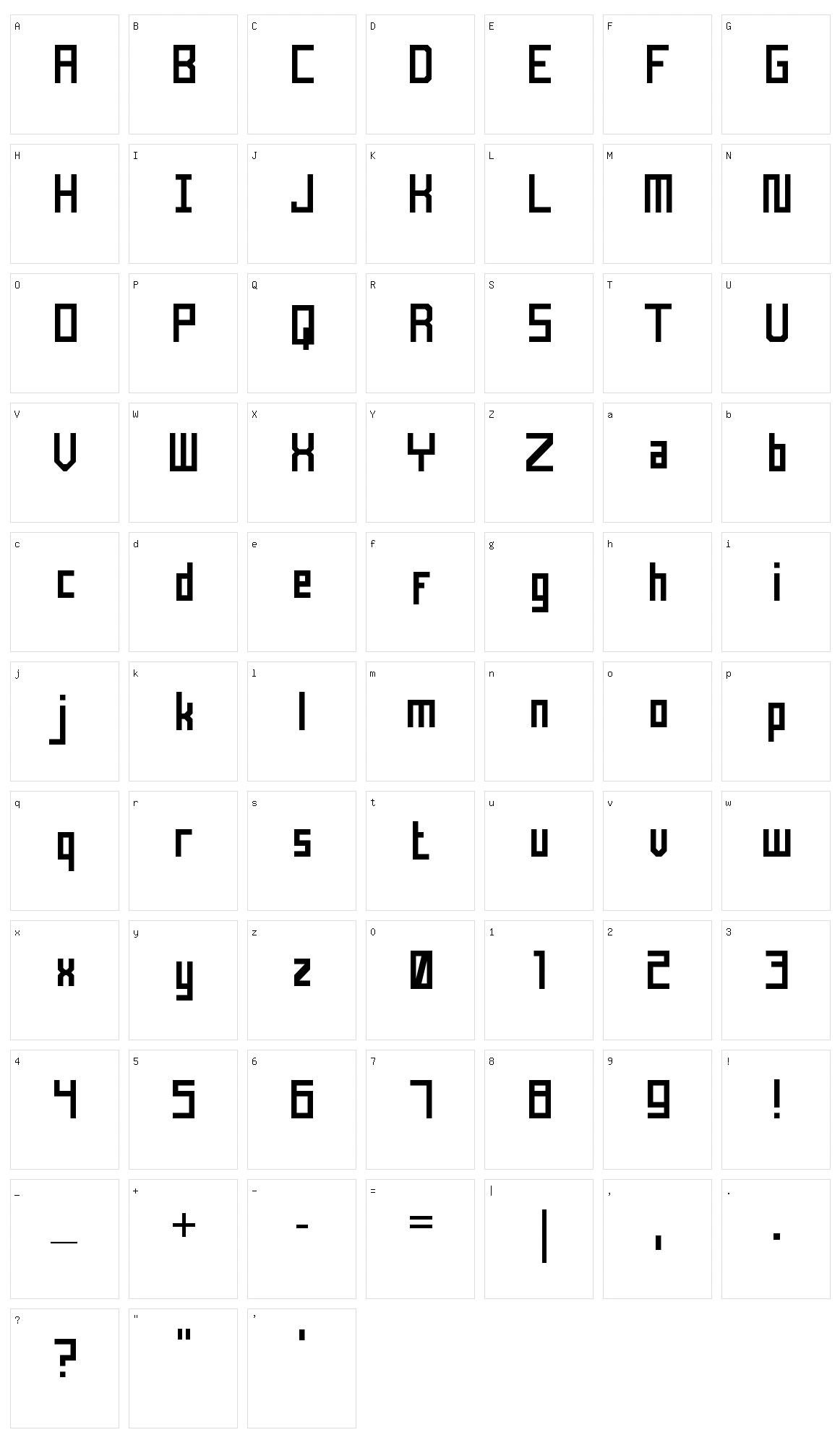
The free font Statix is carefully designed by M.H. Rinaldi, showcasing a thoughtful balance of creativity and usability and falls under the Square font style. When you download the ZIP file, it contains only 3.66 KB of font files, making it lightweight and quick to download. Please review the license details below to understand permitted usage and distribution rights. If license information is not available, we recommend using this font for personal projects only or contacting the author directly for commercial usage permissions.